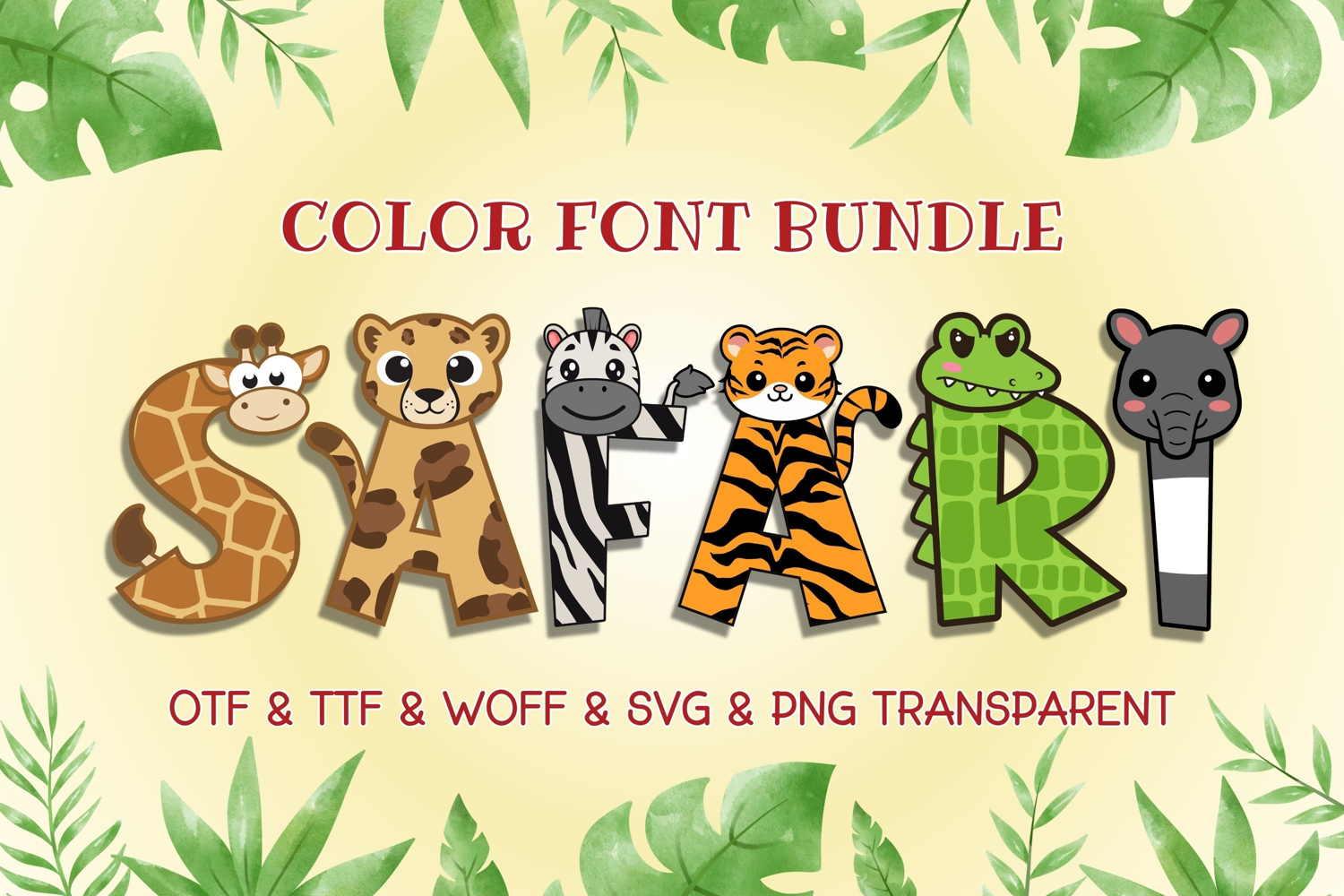
SAFARI - 6 Color Fonts
SAFARI Color Font Bundle is a fun and eye-catching cartoon display font collection featuring adorable safari animals on every letter. This unique alphabet set includes giraffe, cheetah, zebra, tiger, crocodile, and tapir themed letters designed in a playful kids style with bright colors and bold outlines.
Each uppercase character is decorated with cute animal heads and matching animal patterns such as zebra stripes, tiger stripes, giraffe print, crocodile scales, and wildlife textures. This makes it perfect for kids crafts, nursery decor, birthday party designs, jungle invitations, classroom materials, baby shower projects, t-shirt designs, sublimation printing, and Cricut or Silhouette cutting projects.